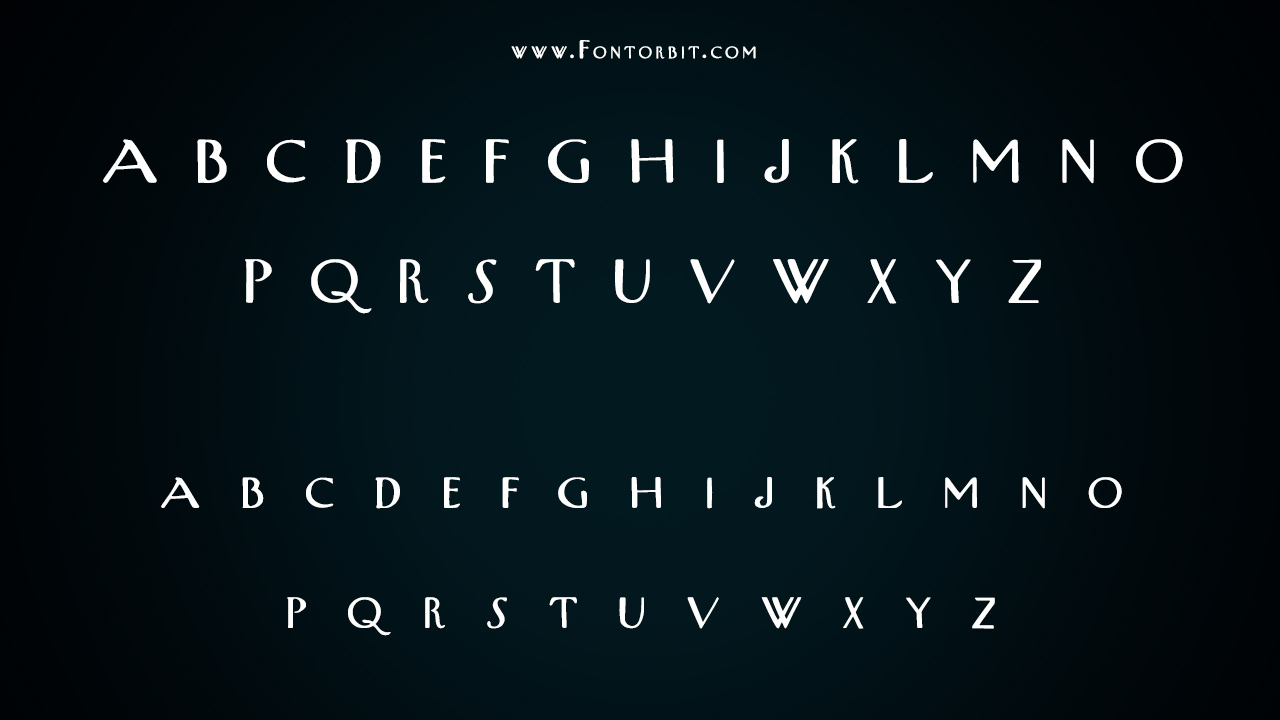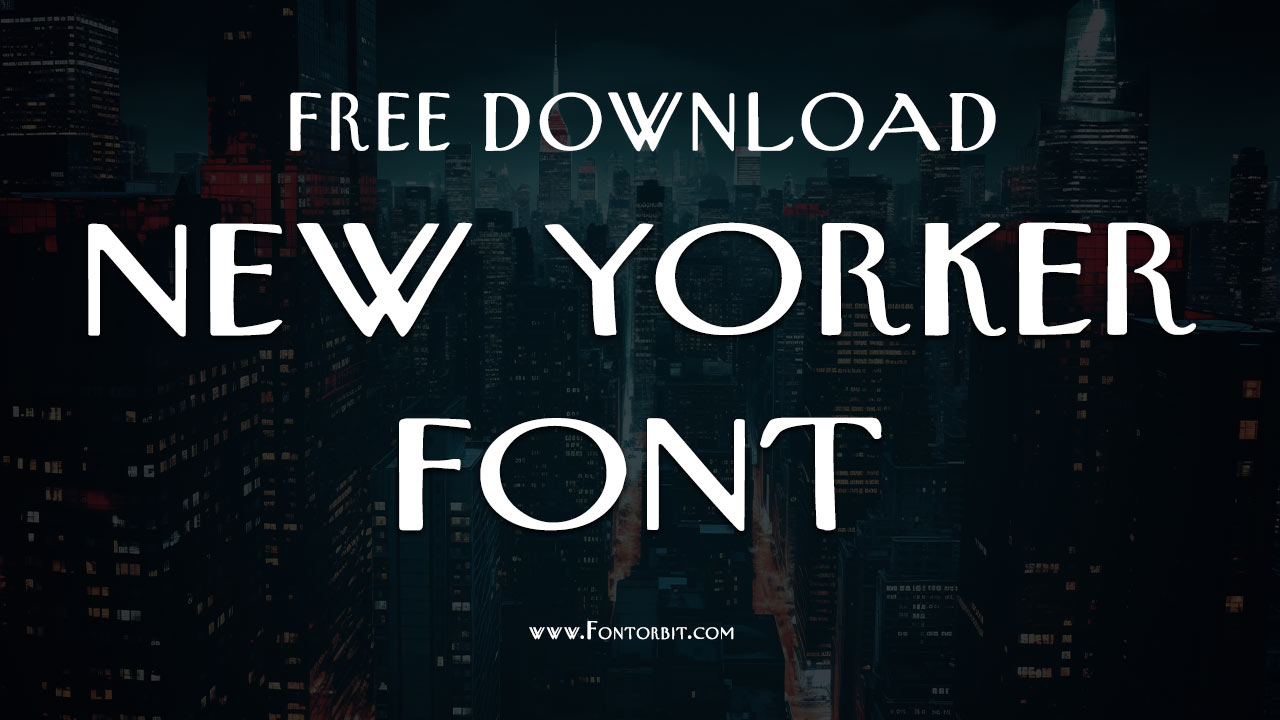
The New Yorker Font draws its design from the renowned American magazine The New Yorker, making it a classic serif typeface. Allen R. Walden designed it. Originally created on October 6, 1992, it is inspired by designs from the early 1900s. Since its release, it has been downloaded 36,330 times and added to 190 collections.
New Yorker Family Includes
The New Yorker Font family offers a variety of styles suitable for different design needs. The family encompasses several variations, each bringing a unique character to your design. With these variations, you can achieve a professional look for print and digital projects. The New Yorker font family includes:
a. New Yorker Regular
b. New Yorker Bold
Notable Uses Of The New Yorker Font
Editorial content, book covers, and print media have prominently used the New Yorker Font, especially for projects requiring elegance and tradition. Magazines, newspapers, and vintage-themed advertising materials have adopted its classic appeal widely.
Notable uses include:
- The New Yorker magazine masthead and headers
- Art Deco-themed posters and invitations
- Luxury branding materials
- Event brochures for classic or high-end venues
Use the New Yorker Font in places where you want to evoke a refined, sophisticated atmosphere. It works particularly well for:
- Magazine covers and editorial pieces
- Branding for high-end fashion and luxury products
- Invitations for formal events such as galas, weddings, or classical music concerts
- Elegant logo designs for businesses seeking an established, vintage image
The New Yorker Font is a beautifully designed serif typeface that brings a sense of history and elegance to any project. Its distinguished style is perfect for formal occasions, high-end branding, and editorial work. If you’re aiming for a refined, professional look, this font is a great choice.
What makes the New Yorker Font unique?
Its vintage, elegant design and strong association with the iconic New Yorker magazine.
What are the best uses for this font?
Editorial design, high-end branding, and luxury product packaging.
Does this font support different languages?
Yes, the New Yorker Font supports multiple languages with standard Latin characters.
Is the New Yorker Font good for web design?
It can be used for headers and titles in web design but may not be ideal for body text due to its decorative nature.